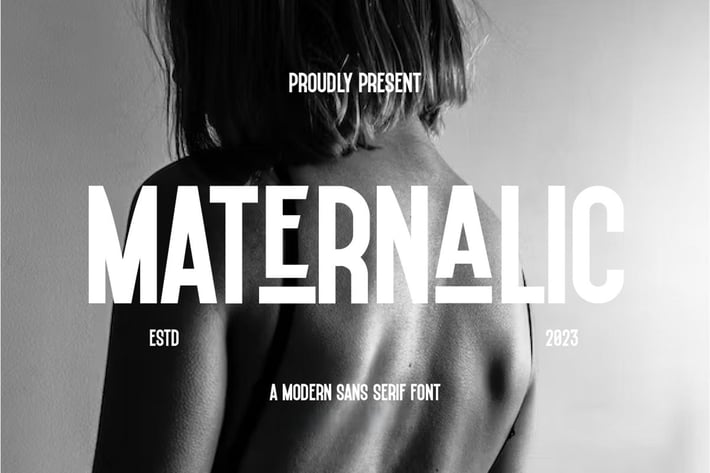
Maternalic – Modern Sporty Sans Serif Display Font
Maternalic is a modern sporty sans serif display font designed to bring bold energy and precision to your visual content. Its clean lines, sharp corners, and athletic vibe make it perfect for sports branding, fitness promotions, action posters, and bold headlines.
Ideal for fast-paced designs that demand clarity and movement.
Key Features:
- Sporty sans serif style with modern structure
- Excellent for sportswear branding, posters, and digital ads
- Bold and clean for maximum legibility
- Perfect for fitness, tech, or active lifestyle designs
- Includes uppercase letters, numbers, and punctuation
- Well-balanced kerning and consistent spacing
Maternalic helps your designs stand out with strength, clarity, and confidence.
Enhance your projects with Maternalic – a perfect blend of modern sports aesthetics and bold display typography.